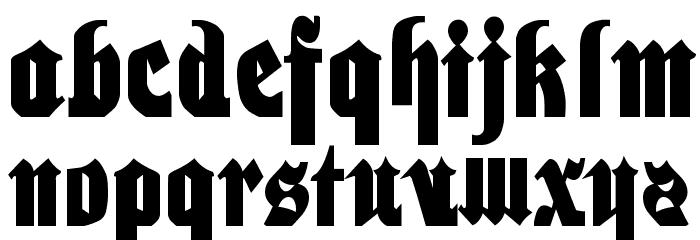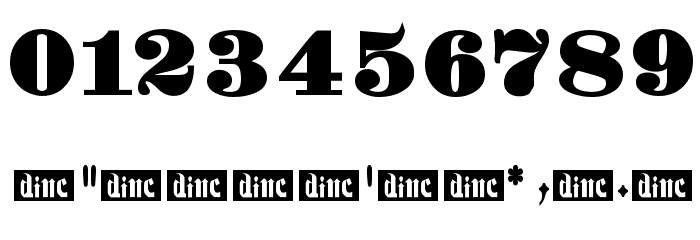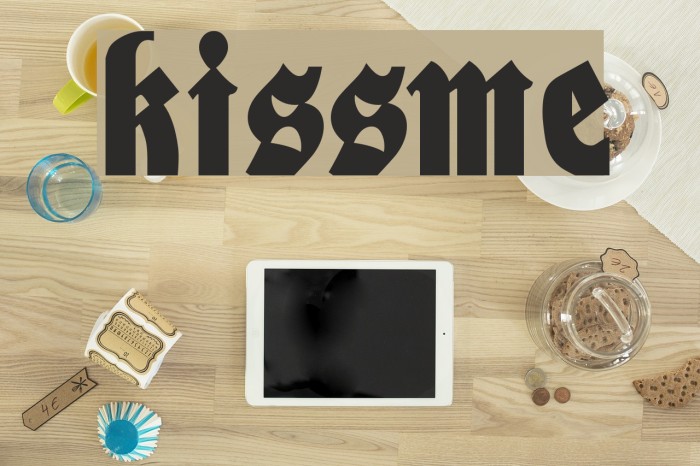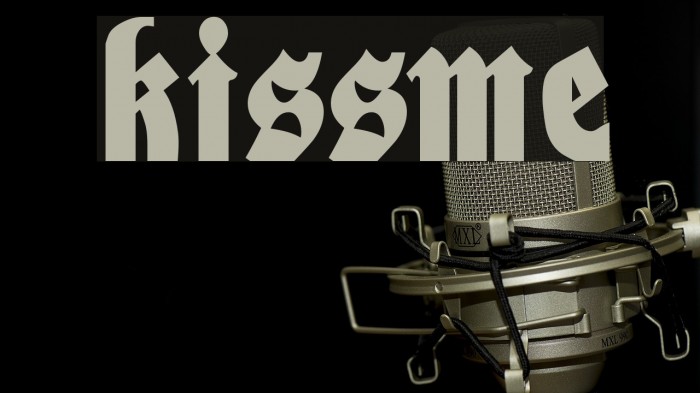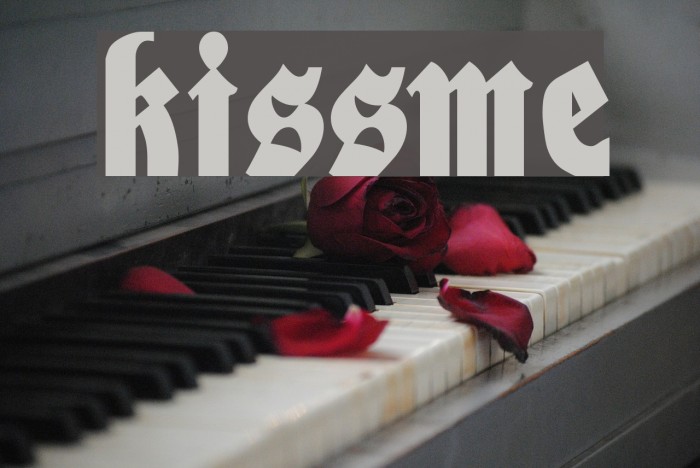
KissMe Font
This font exhibits a bold and striking blackletter style, characterized by its sharp, angular lines and dramatic presence. The uppercase and lowercase letters maintain a consistent gothic aesthetic, with intricate detailing that adds a sense of historical depth. The numerals are equally bold, ensuring they stand out prominently. Special characters are designed to match the overall gothic theme, enhancing the font's cohesive look. This font is ideal for projects that require a strong, traditional appearance with a touch of elegance.
A bold, blackletter font with sharp, angular lines and a gothic aesthetic.
- Proposed Projects: Ideal for use in branding, posters, book covers, and any design requiring a historical or gothic touch.
- Category: Blackletter
- Overall Style: Vintage